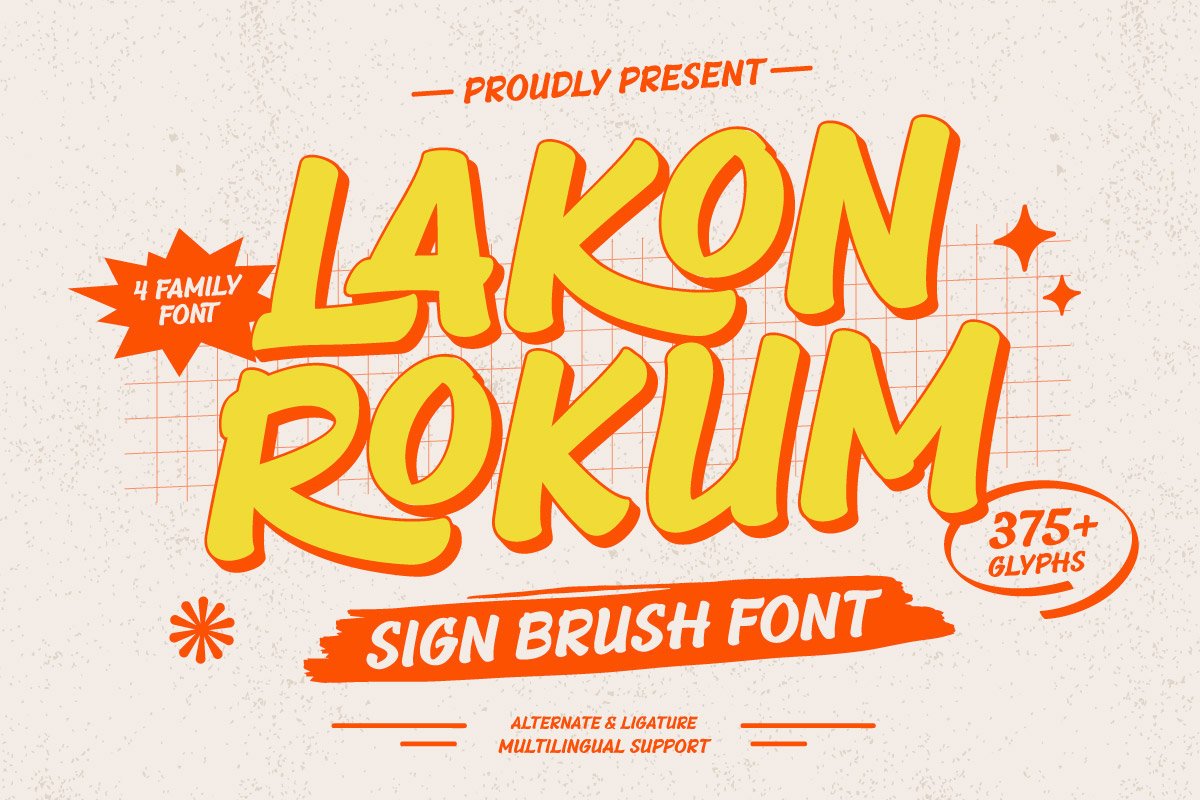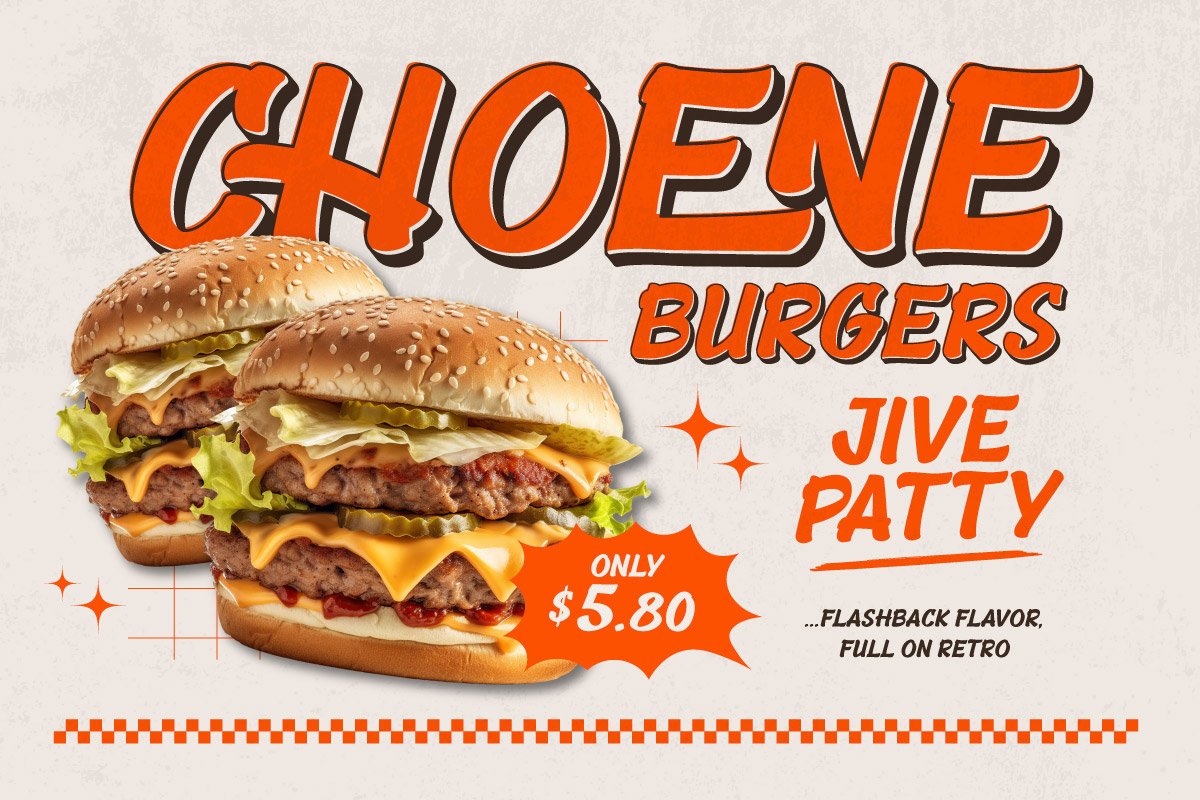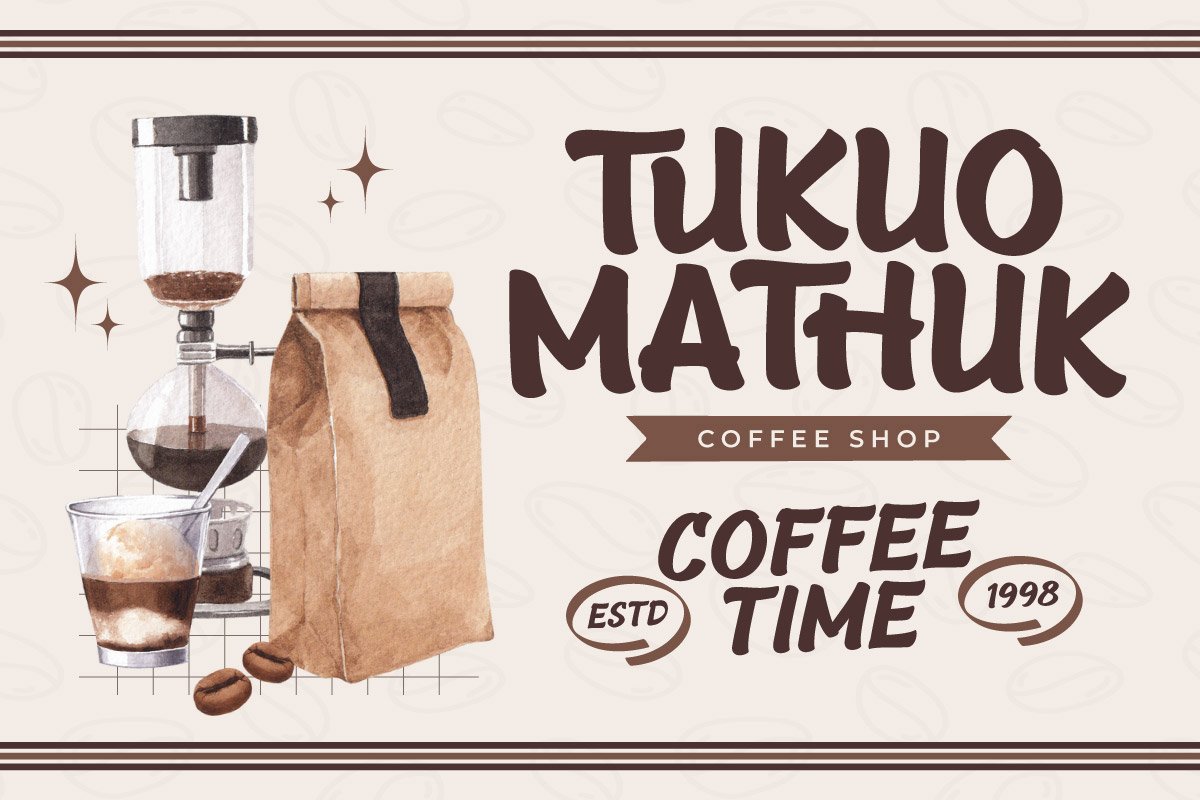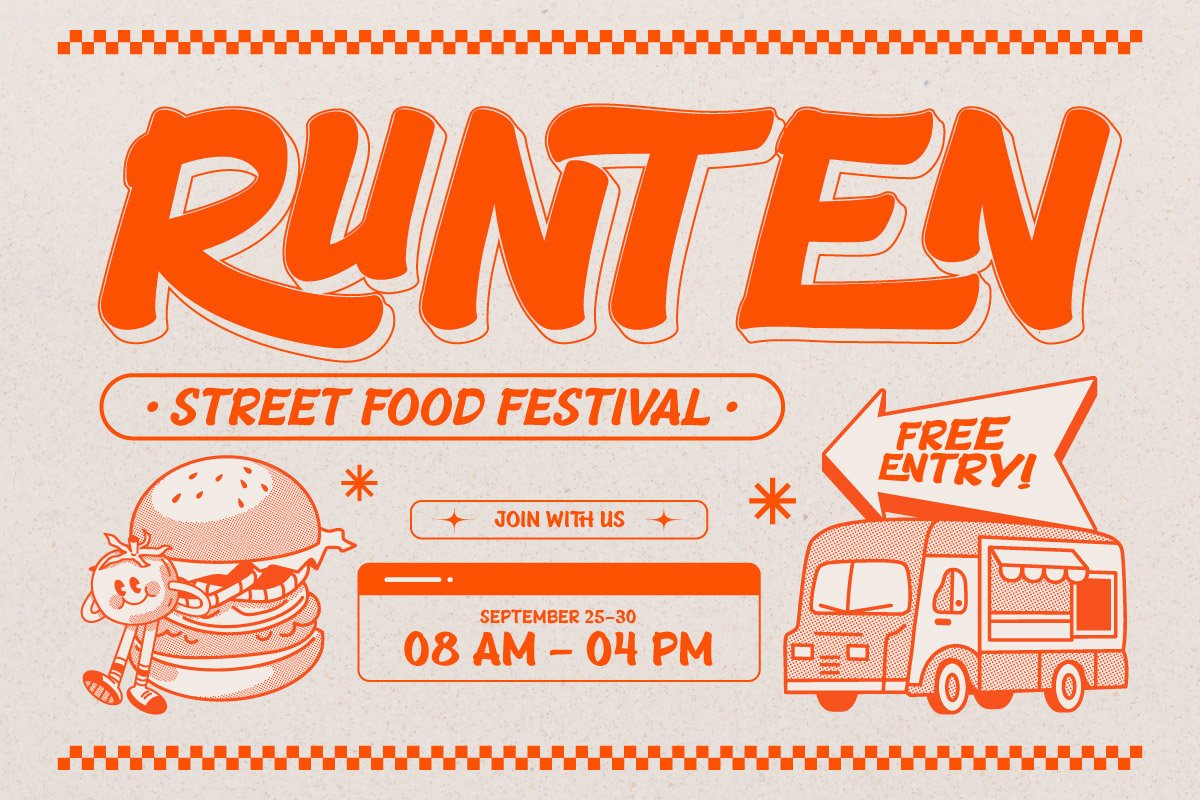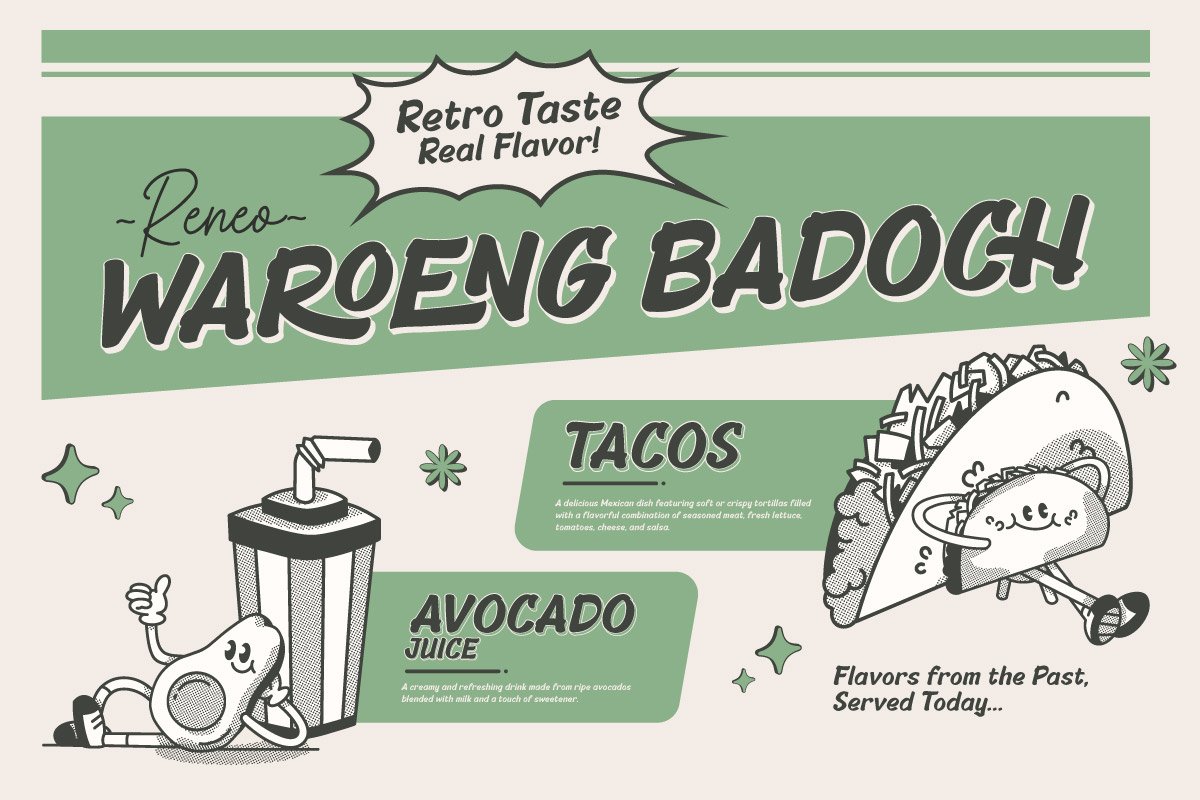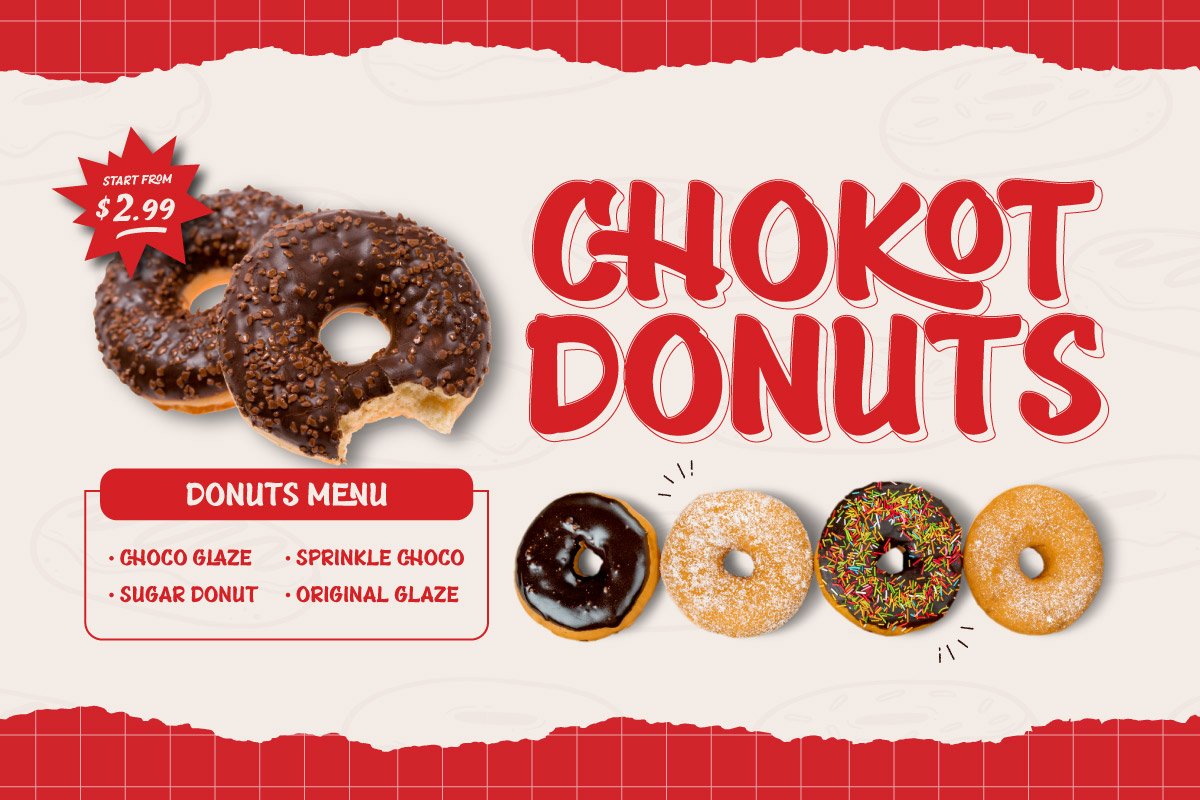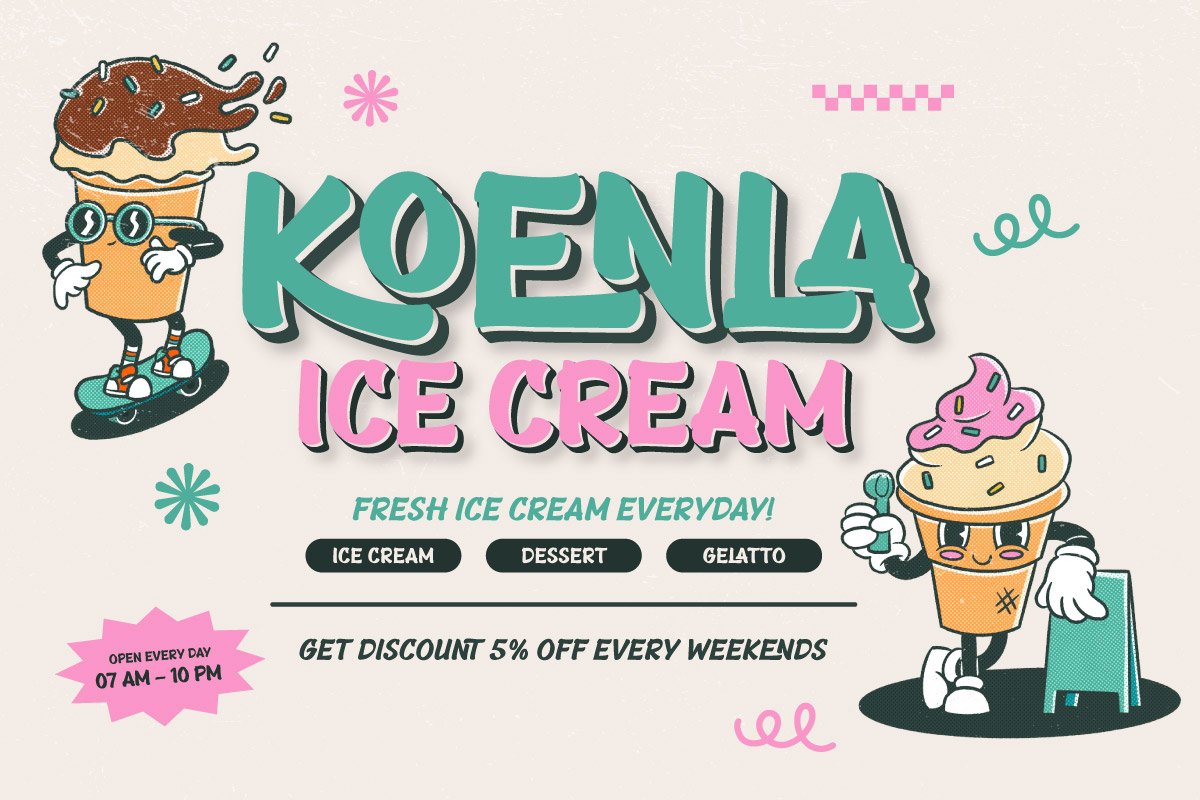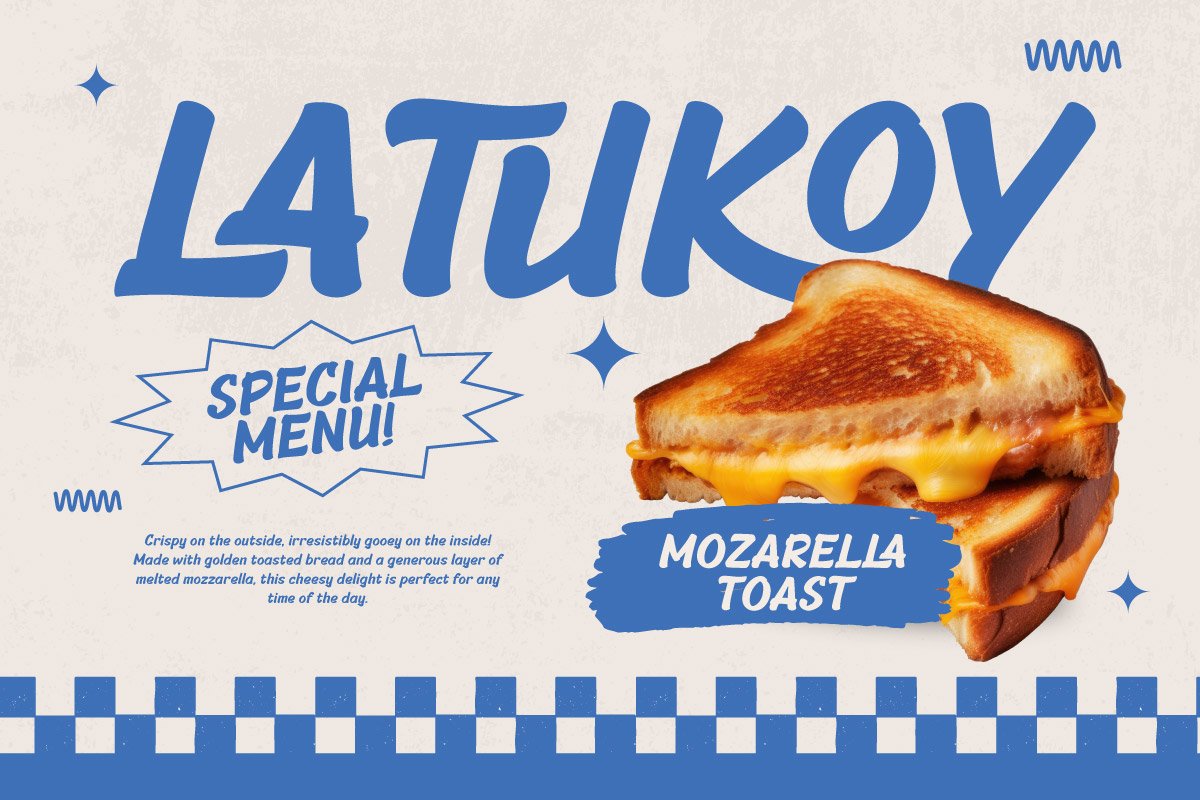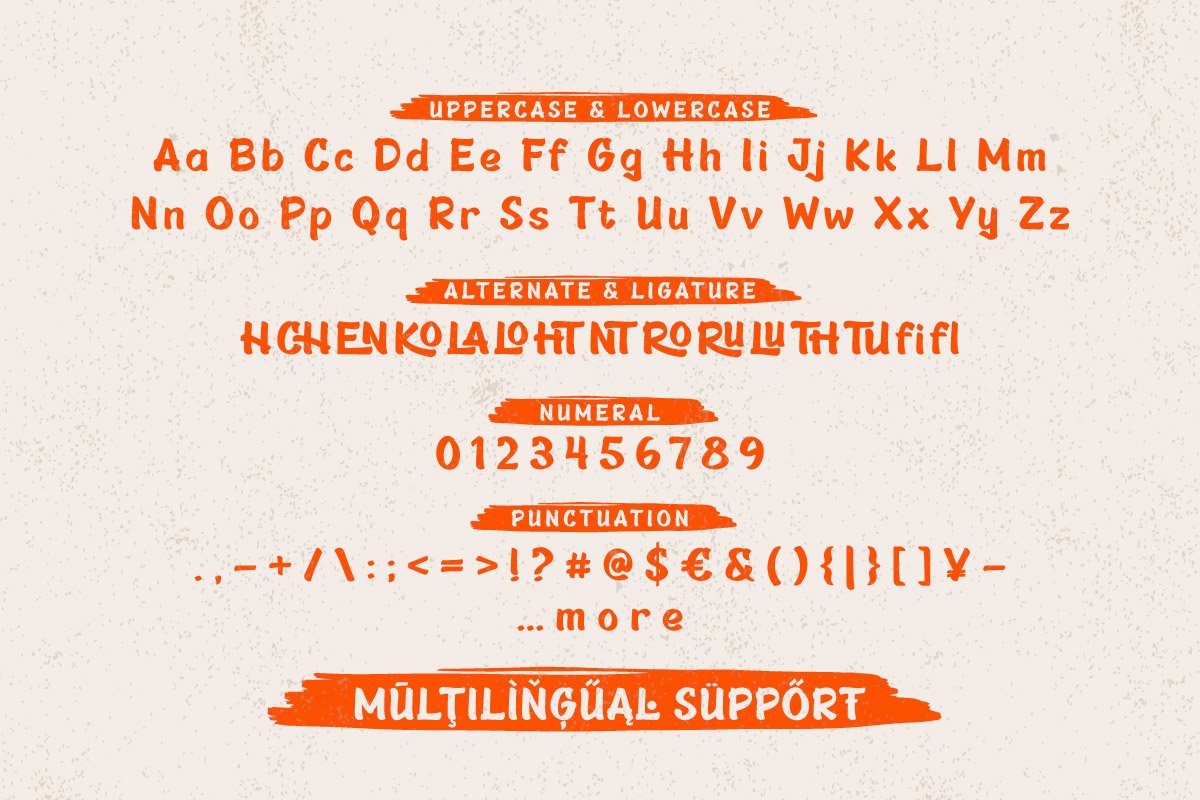
Lakon Rokum – Sign Brush Font
Slant
Shadow
Shadow Slant
Lakon Rokum is a bold and expressive sign brush font that captures the essence of vintage sign painting and hand-crafted storefront lettering. With four versatile styles—Regular, Slant, Shadow, and Shadow Slant—this font offers endless creative possibilities for branding, posters, packaging, or promotional materials that need a strong and authentic personality.
Each stroke in Lakon Rokum reflects the raw energy of brush calligraphy, with dynamic movements and natural texture. The Slant version adds speed and flair, while the Shadow styles give depth and dimensionality that make your text pop off the page or screen.
Whether you’re designing a retro cafe logo, a barbershop sign, or bold product labels, Lakon Rokum brings a handcrafted, eye-catching feel that stands out in both print and digital design.